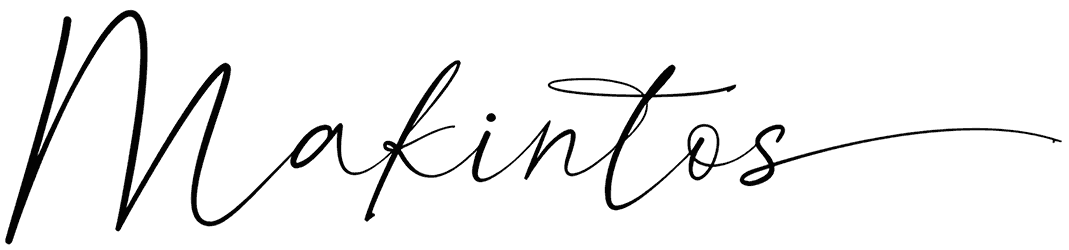
Makintos Font
The Makintos is a handwritten font that will add a personal touch to any project. With its elegant, flowing letters and natural style, this handwritten font is perfect for invitations, greeting cards, logos, and so much more.